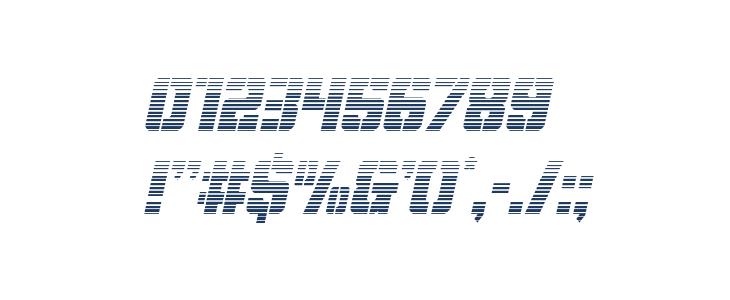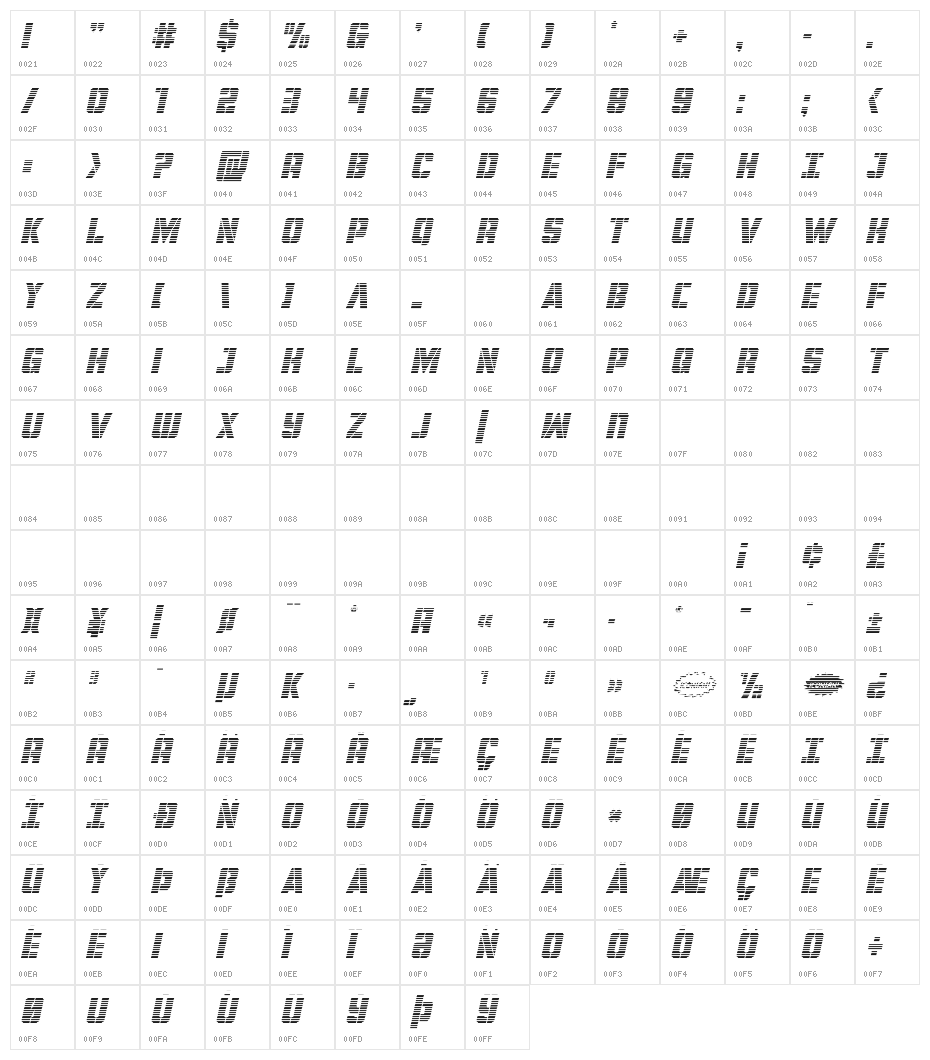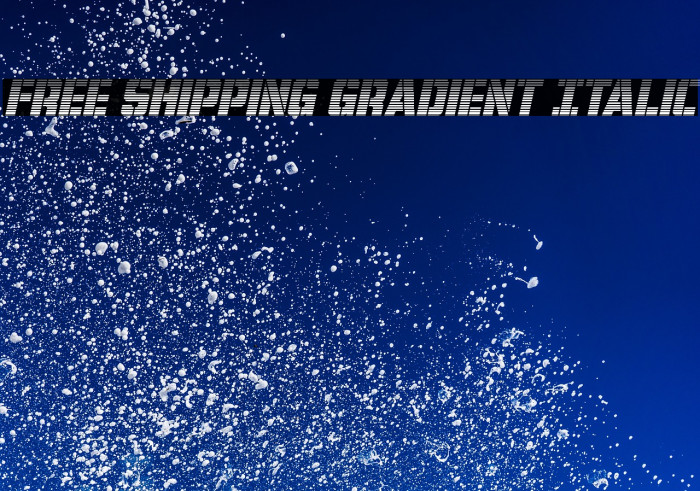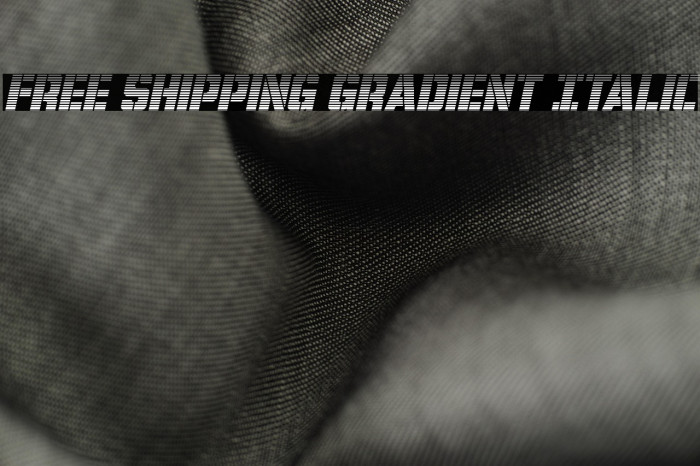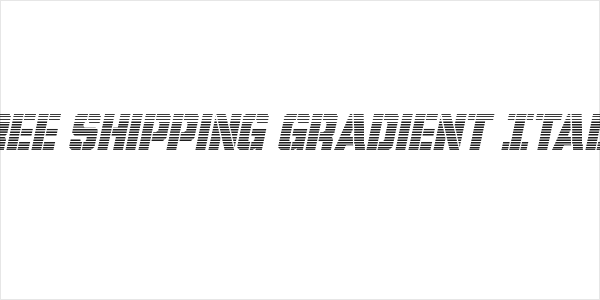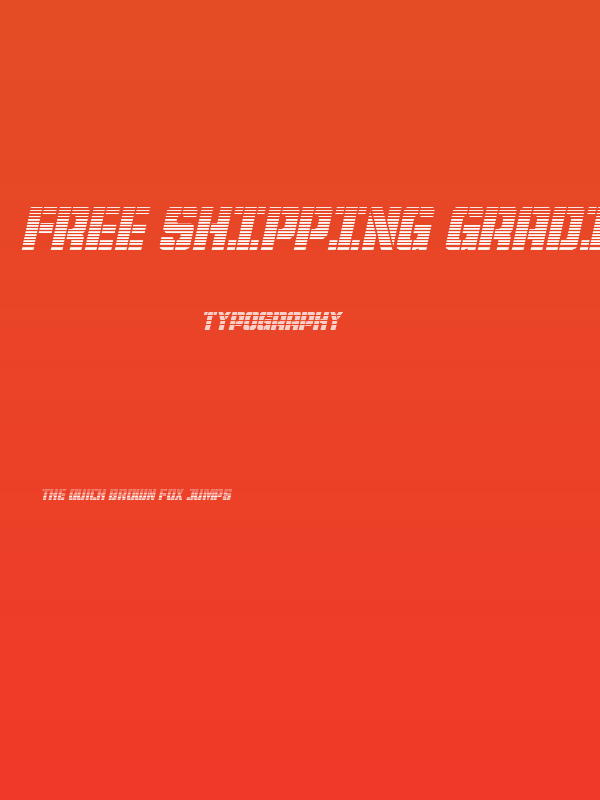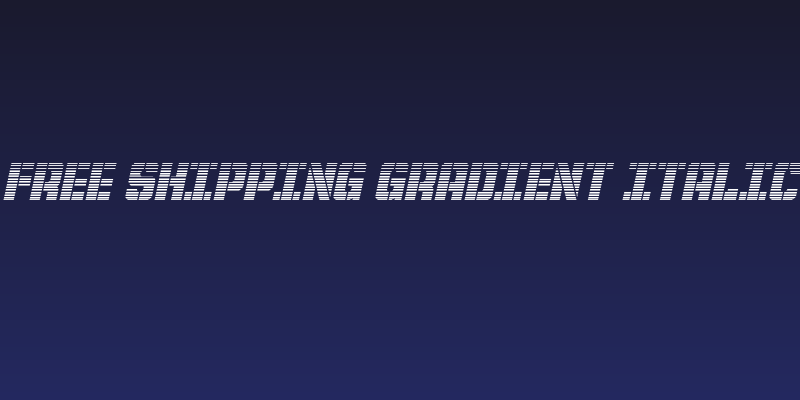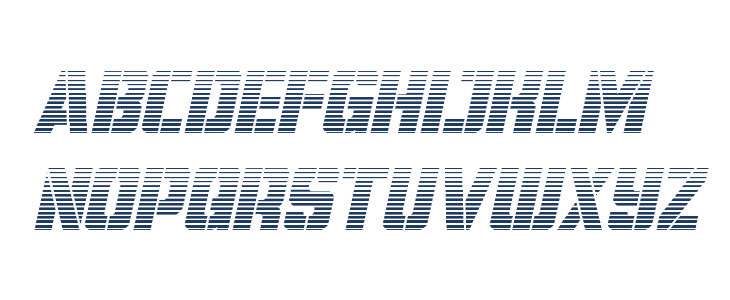
Free Shipping Gradient Italic Font
Free Shipping Gradient Italic Description
This font features a bold, italicized style with a distinctive gradient effect created by horizontal lines running through each character. The uppercase and lowercase letters, as well as numbers and special characters, all share this unique striped pattern. The design gives a sense of motion and speed, making it ideal for dynamic and energetic themes. The characters are wide and have a strong presence, suitable for making impactful statements. The spacing between characters is normal, ensuring readability while maintaining its bold aesthetic.
| Proposed Projects | Ideal for sports branding, automotive advertisements, or any project requiring a sense of speed and dynamism. |